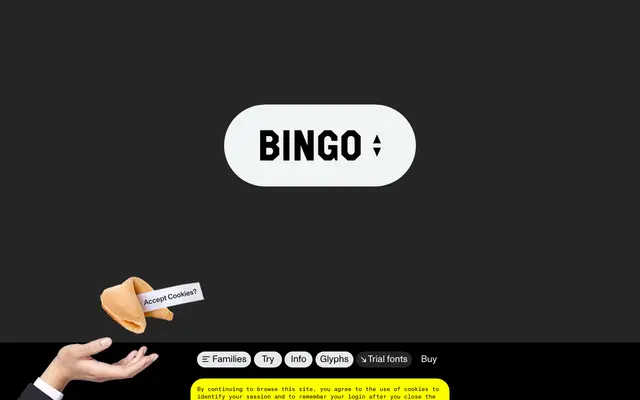
ABC Bingo
Dinamo Typefaces · Dinamo (Johannes Breyer), original by Rob Roy Kelly · 2011
A polygonal wood-type display drawn by Johannes Breyer from a Rob Roy Kelly sample, smooth at small sizes and brutal at large.
A display face by Johannes Breyer based on a sample from Rob Roy Kelly's American Wood Type: 1829-1900, redrawn so its inner and outer contours are made of polygons rather than smooth curves. The result reads softly at body size and reveals jagged edges at billboard scale. Comes in Regular and Condensed widths with a thin monolinear punctuation set added in 2012.
Dinamo describes Bingo as Johannes Breyer's first hit, drawn in 2011 while he was an intern at NORM and based on a sample published in Rob Roy Kelly's American Wood Type 1829-1900, with inner and outer contours drawn with polygons so the shapes read smooth at small scale and brutal when large.